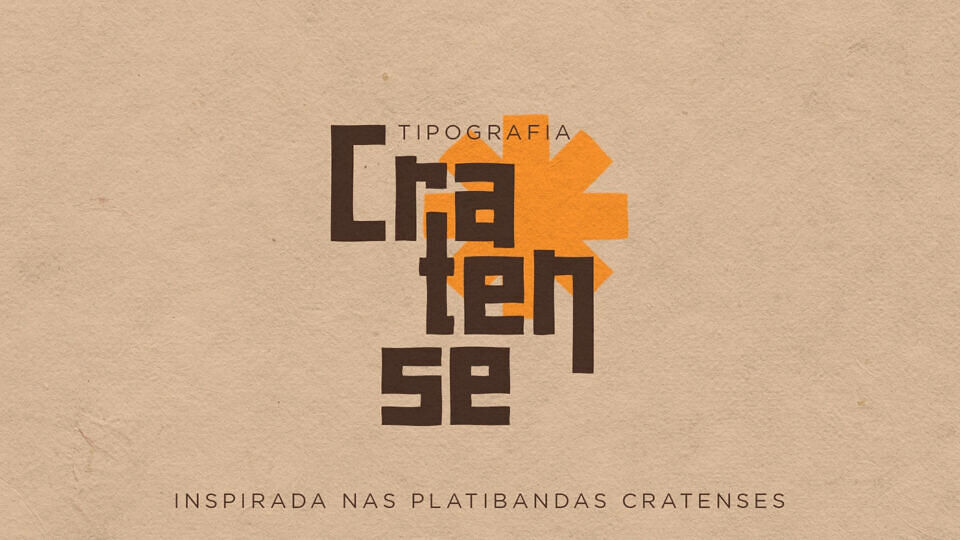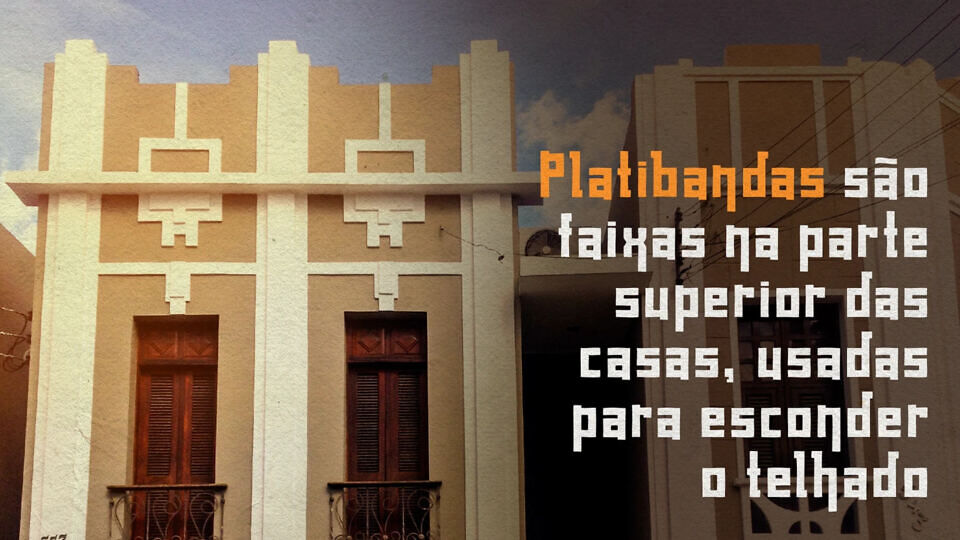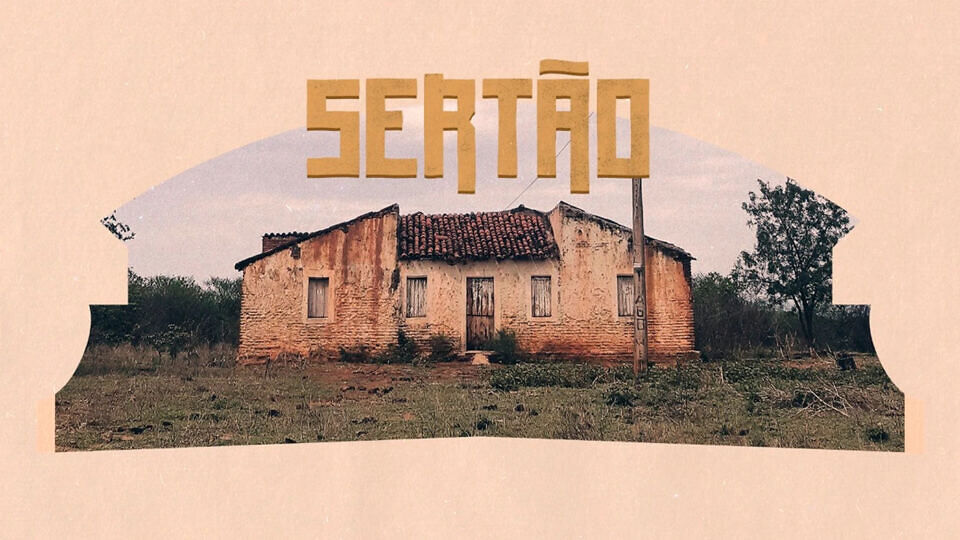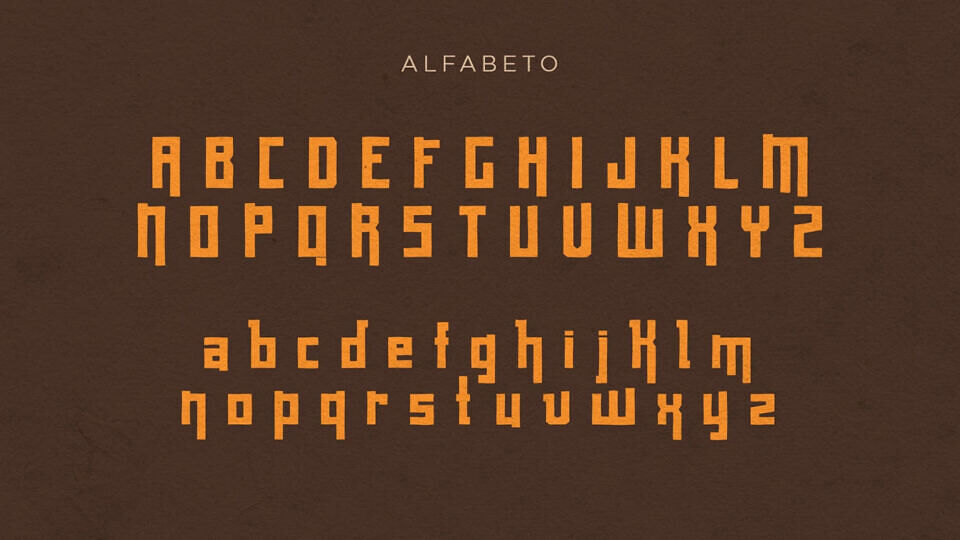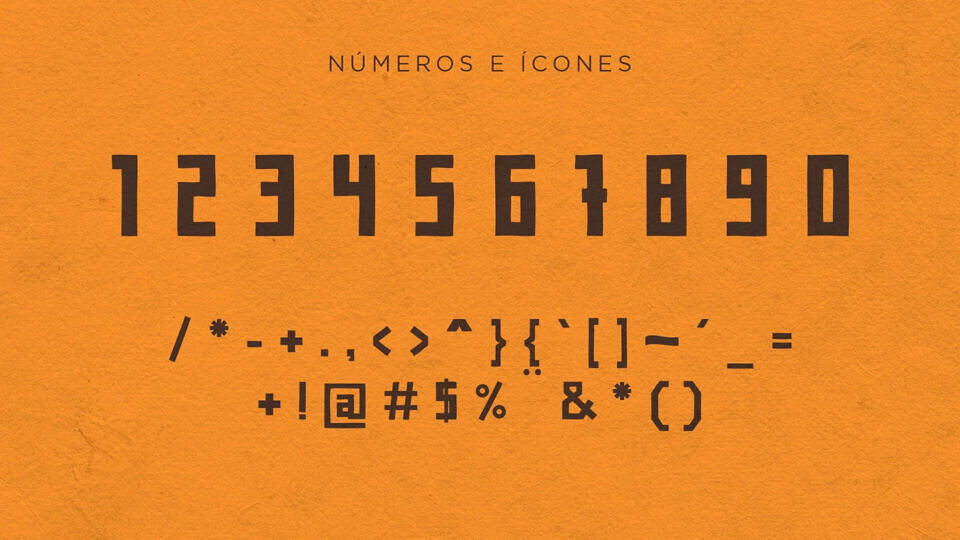
With the goal of preserving and promoting the historical memory of Crato, a Brazilian municipality in the state of Ceará, the “Cratense” typeface was inspired by Northeastern architecture and developed from photographic documentation of the parapets in the city center.
These parapets are still very common in the city and, as a form of artistic expression by master bricklayers, they have left unique marks that have become part of the identity of small towns. As a display typeface, it is ideal for titles and short texts.